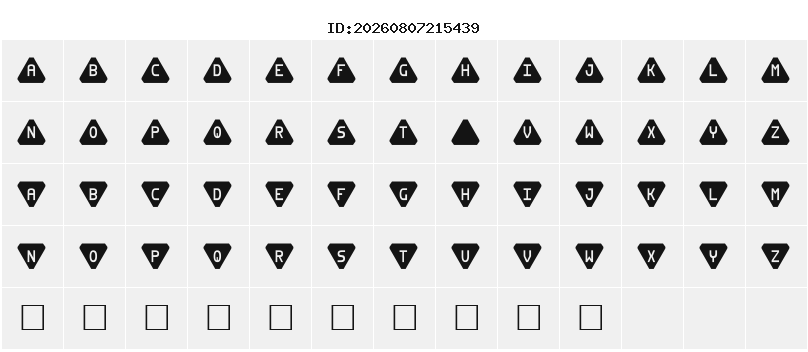
Pyrabet Preview
• Font Name: Pyrabet
• Full Font Name: Pyrabet
About Pyrabet.ttf
Pyrabet.ttf is a modern, elegant sans-serif font designed for ultimate readability and visual harmony. Perfect for branding, headlines, web design, and print materials.